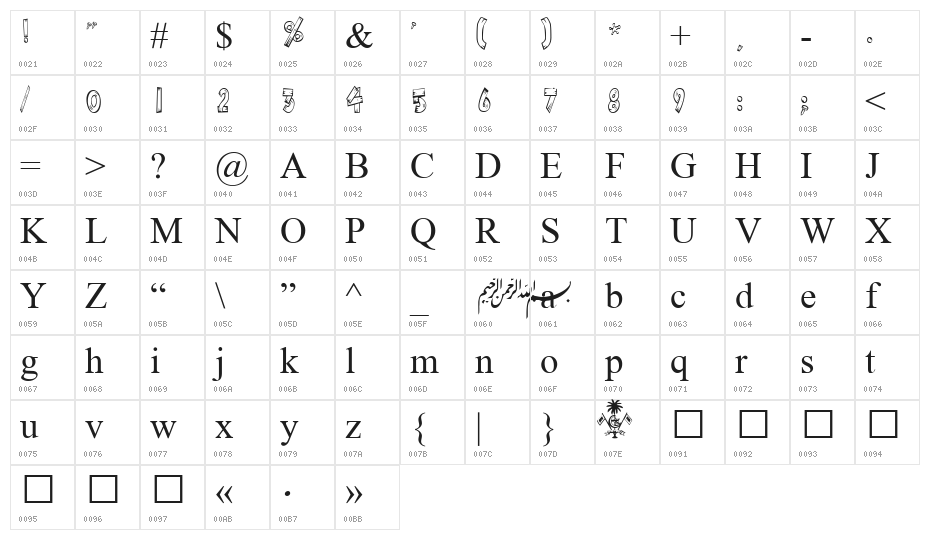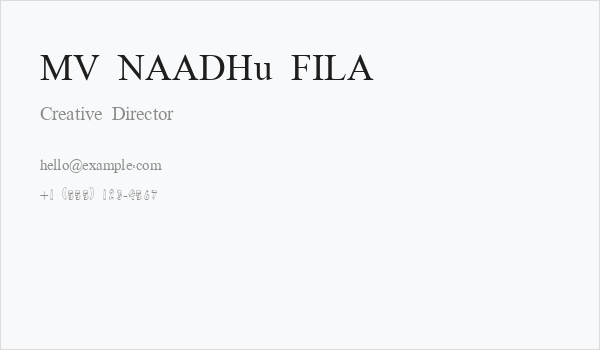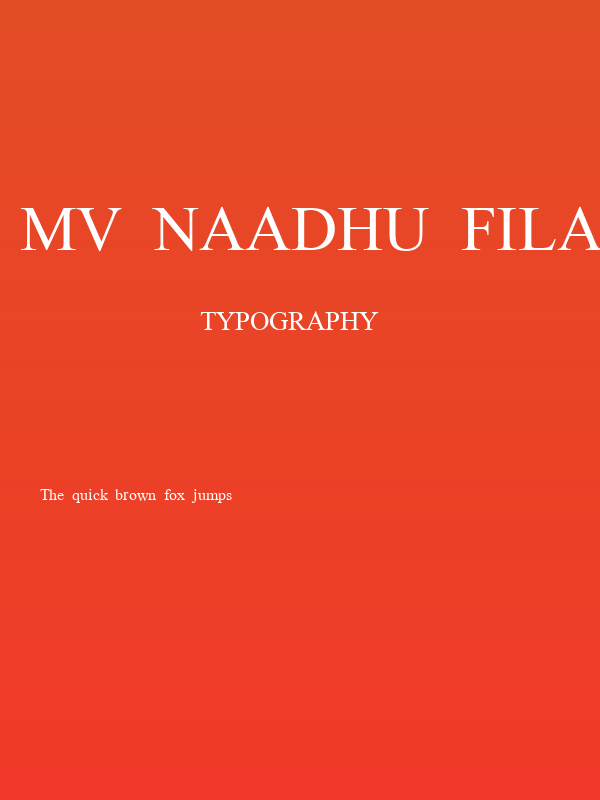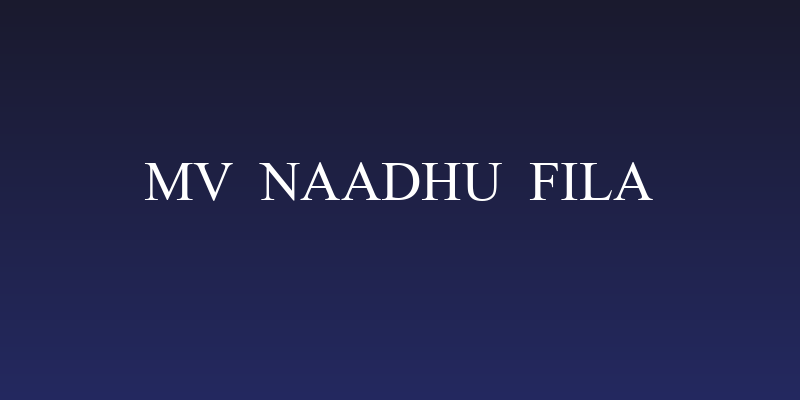
MV NAADHu FILA Font
MV NAADHu FILA Description
This font features a classic serif style with elegant and refined strokes, offering a timeless and sophisticated appearance. The uppercase letters are bold and commanding, while the lowercase letters maintain a graceful and balanced form. The numerals are uniquely styled with a playful, decorative twist, adding a touch of whimsy to the overall design. Special characters are creatively designed, enhancing the font's versatility and charm. This font is ideal for projects that require a blend of tradition and creativity, making it suitable for both formal and artistic applications.
| Proposed Projects | Ideal for book covers, editorial design, branding, and invitations. |